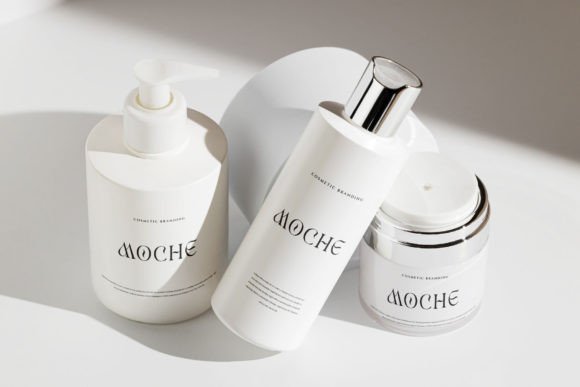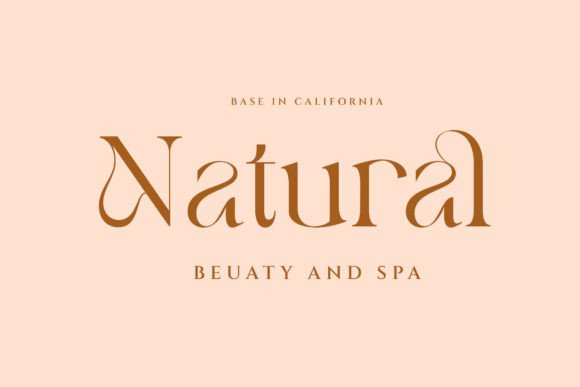
Valerie Angel Font
Valerie Angel is a beautiful, feminine, display serif font that embraces elegance and grace. Its delicate curves and refined details create a sense of sophistication and femininity wrapped with a beautiful Alternate stylist.  Valerie Angel brings a touch of charm and sophistication to branding, editorial designs, and more.  This font is fashionable, elegant, luxurious, premium, modern, catchy, and easy to use with its versatility and contemporary appeal.